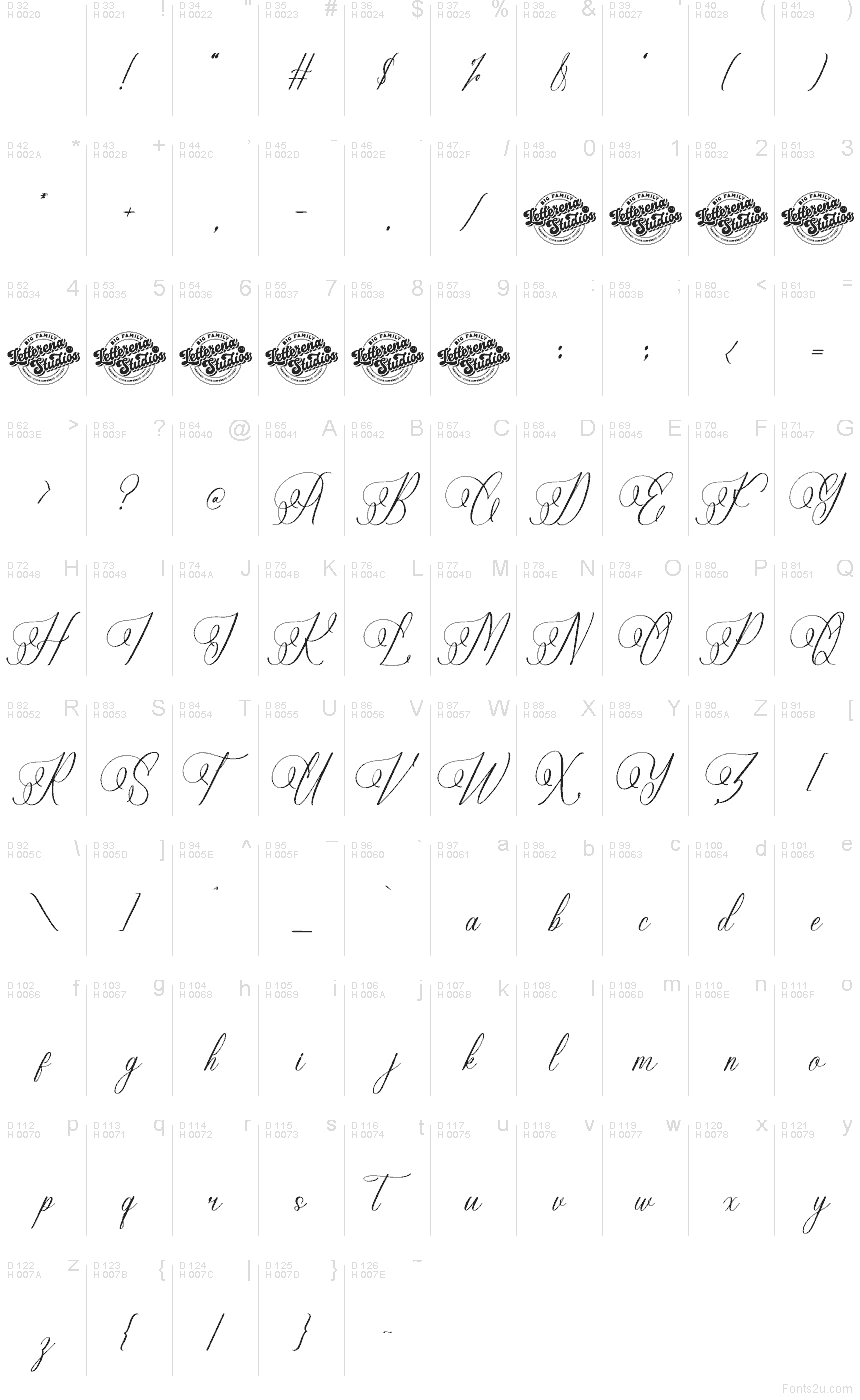
Eladorna Gladiota DEMO VERSION
Eladorna Gladiota font by Letterena Studios is a free calligraphy typeface with long, sweeping strokes and delicate, ink-like hairlines that feel hand-lettered on fine stationery. Its looping capitals and airy connections give every word a sense of movement, as if it were just written with a pointed pen and a steady, graceful hand.
Using Eladorna Gladiota, you can instantly elevate wedding invitations, save-the-date cards, boutique logos, perfume or cosmetic packaging, certificate titles, and romantic quote graphics. This free font shines when set large so the flourishes can breathe; pair it with a simple, modern sans-serif for body text to keep your layouts elegant and readable.